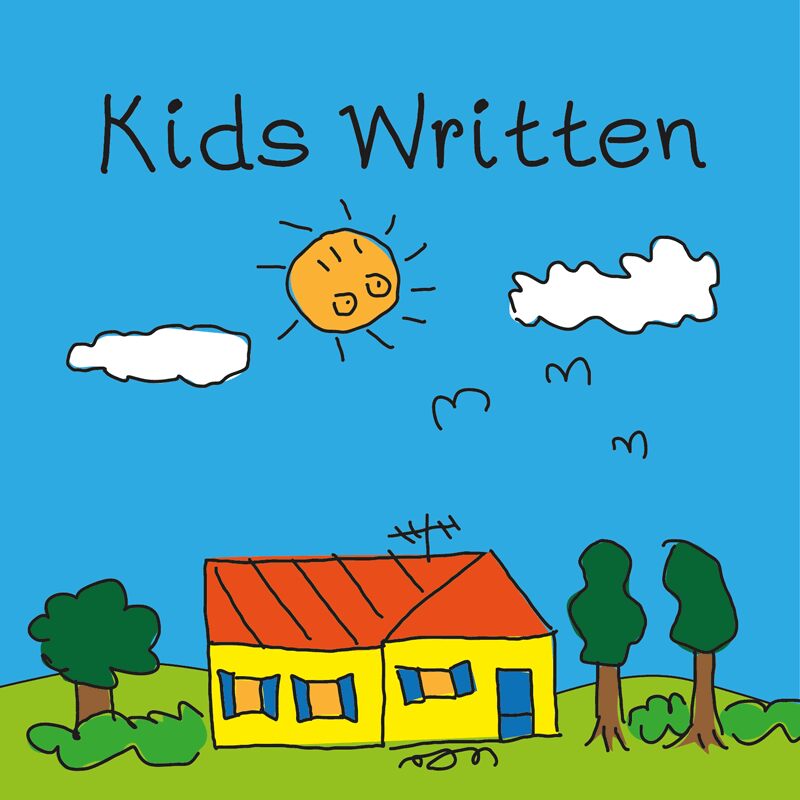
Kids Written Regular
Kids Written font by Galdino Otten Fonts is a quirky handwritten typeface that captures spontaneity and childlike charm. Inspired by children’s handwriting, it brings this usually informal style to the digital world. An informal presentation in nature, the font was carefully crafted to establish a friendly bond with all readers.